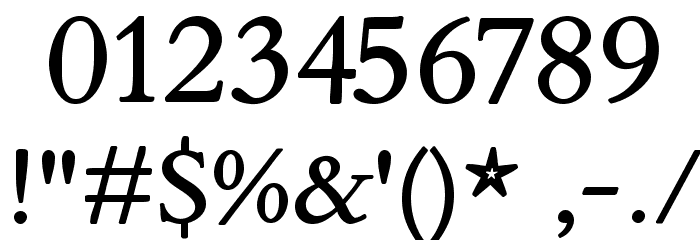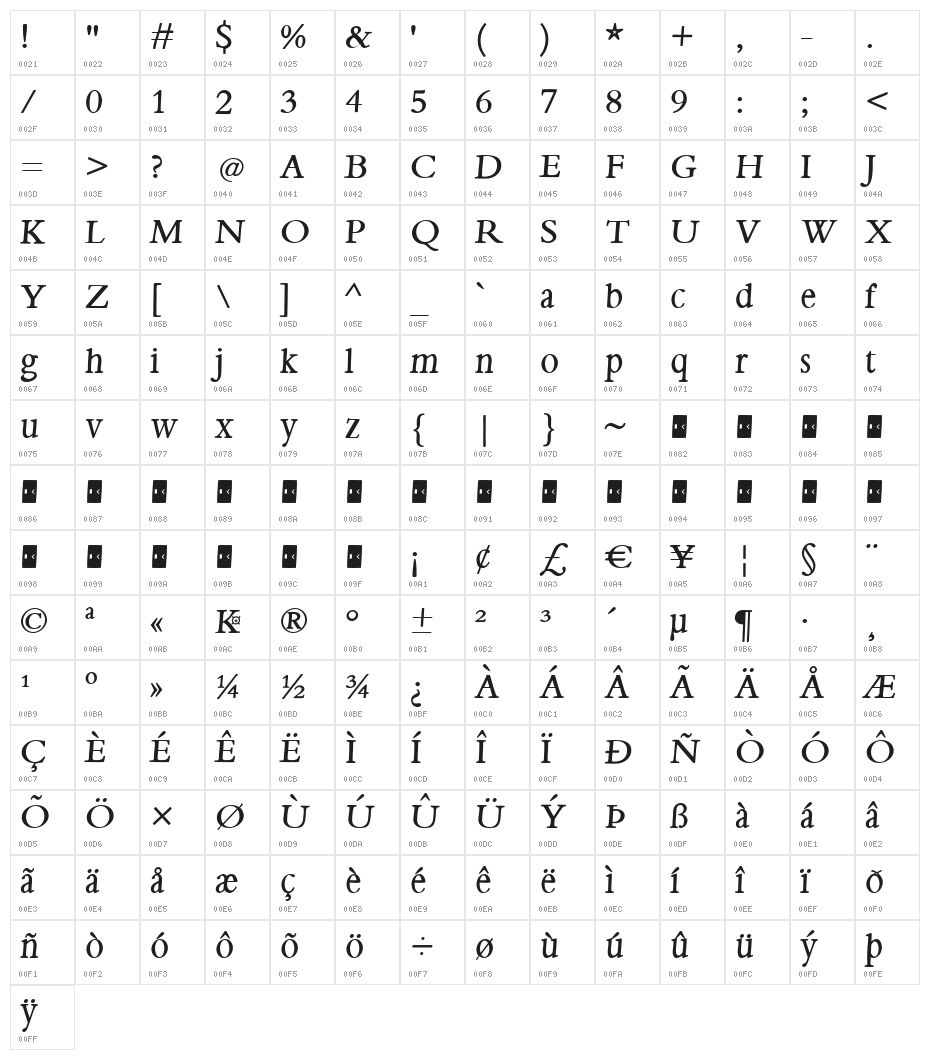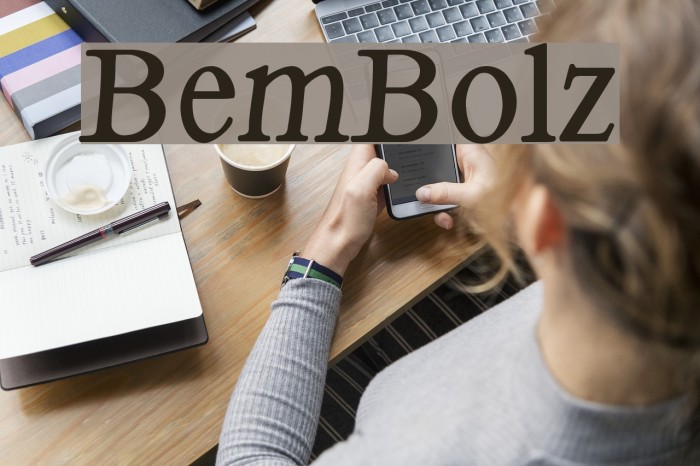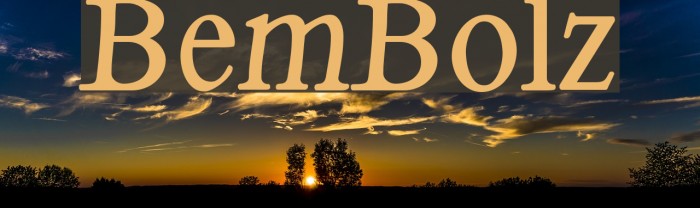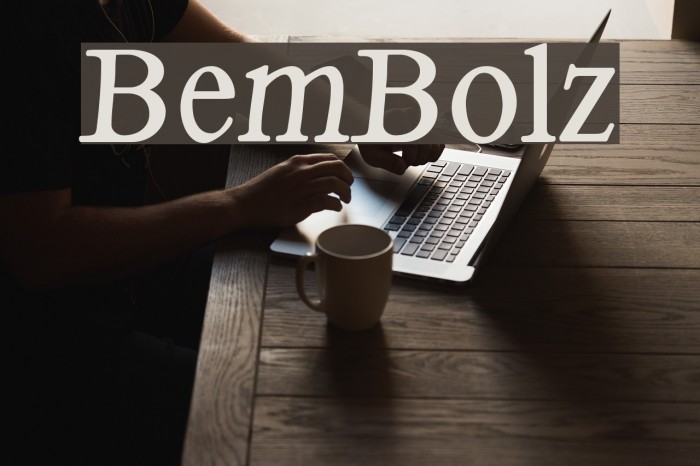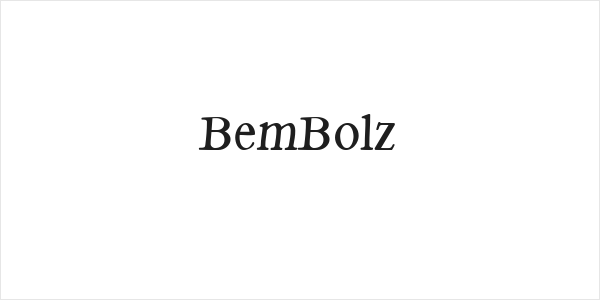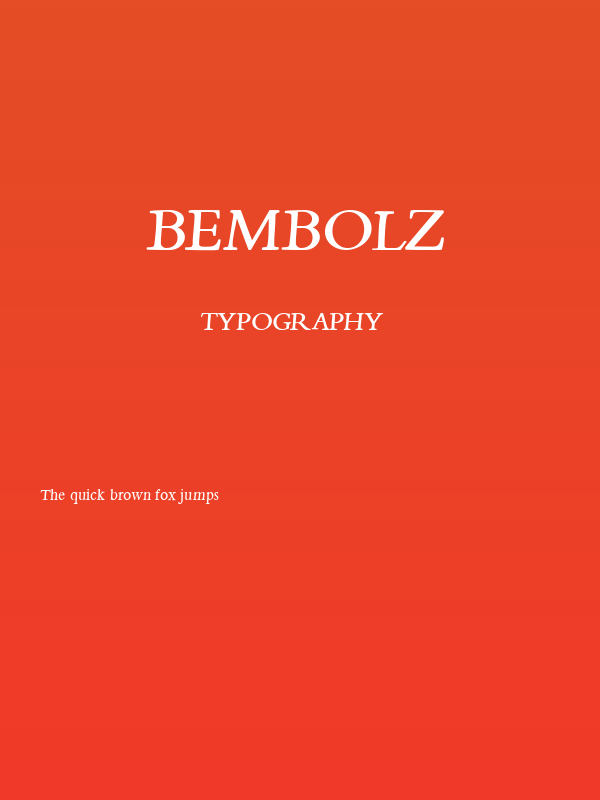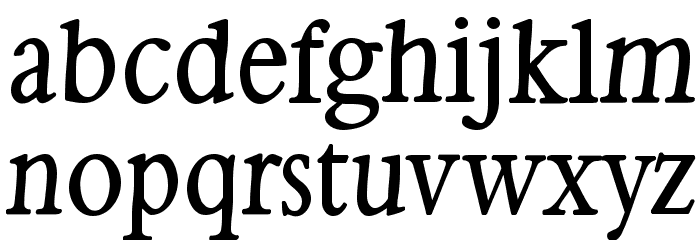
BemBolz Font
BemBolz Description
This font features a classic serif design with elegant, flowing lines and a slightly italicized appearance. The uppercase letters are bold and commanding, while the lowercase letters maintain a graceful and readable form. The numerals are well-proportioned, and the special characters are distinct and stylish. The overall design conveys a sense of tradition and sophistication, making it suitable for formal and professional applications. The serifs are pronounced, adding to the font's readability and aesthetic appeal.
| Proposed Projects | Ideal for book covers, formal invitations, branding for luxury products, and editorial design. |